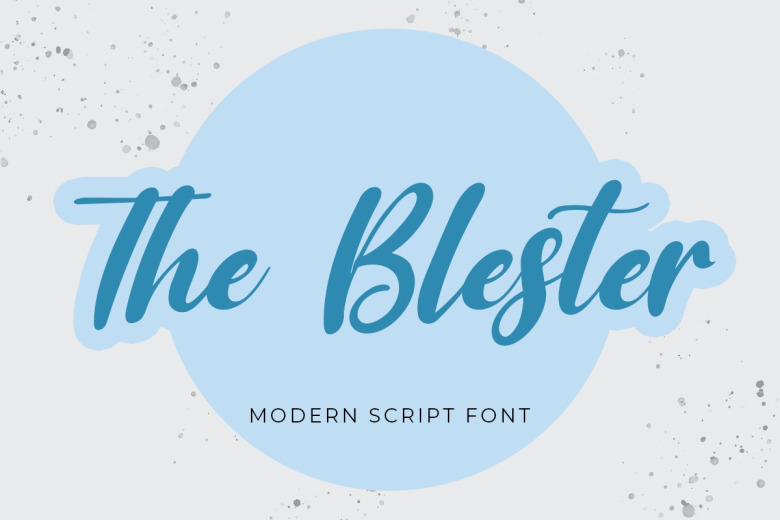
The Blester Font
The Blester is a cute and quirky script handwritten font. Fall in love with its incredibly versatile charm and use it to create unique wedding invitations, stunning stationary art, remarkable social media posts — the possibilities are endless!
The Blester Handwritten Script Font